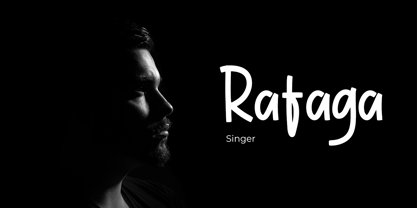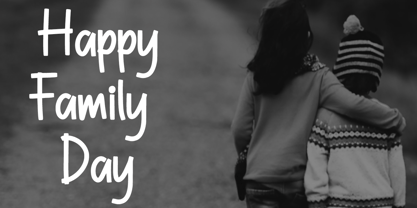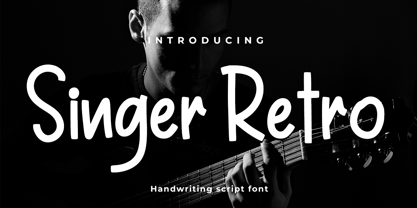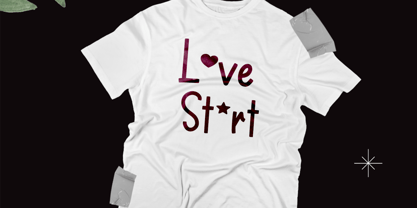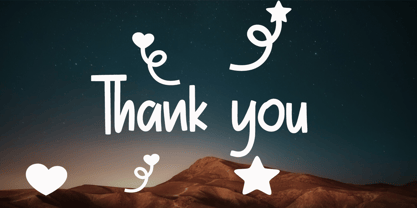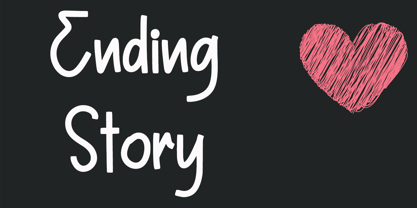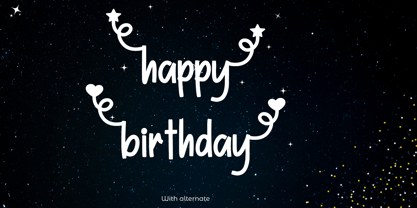
Singer Retro
by Cocodesign
The Singer Retro Font Family was designed by Muhammad Zaini and published by Cocodesign. Singer Retro contains 1 styles. More about this family
Unleash the vintage charm with Singer Retro, your next favorite natural handwritten font. Immerse yourself in simplicity that inspires elegance, making it a sublime choice for logos you adore, the invitations you'd love sending, and stationery worth showing off. With its unique touch, it beautifully, yet subtly, enhances wedding designs, making them more personal and memorable. Singer Retro doesn't stop there - consider your social media posts amplified, your advertisements more appealing, and your product packaging irresistibly attention-grabbing. Whether you want standout labels or watermarked photography, Singer Retro elevates the artsy charm in your works. Bring your special events or any creative projects to life with this timeless handwritten font.
Designers: Muhammad Zaini
Foundry: Cocodesign